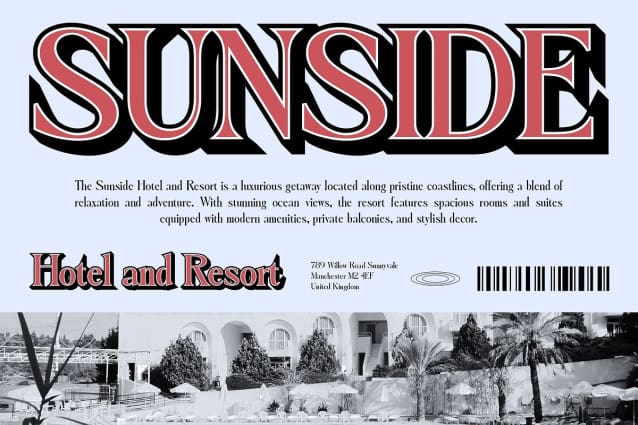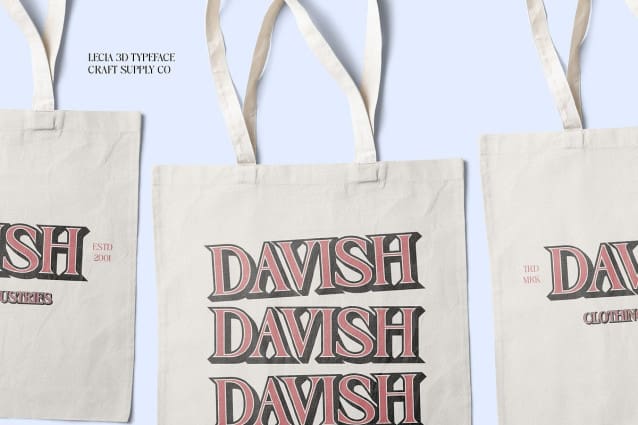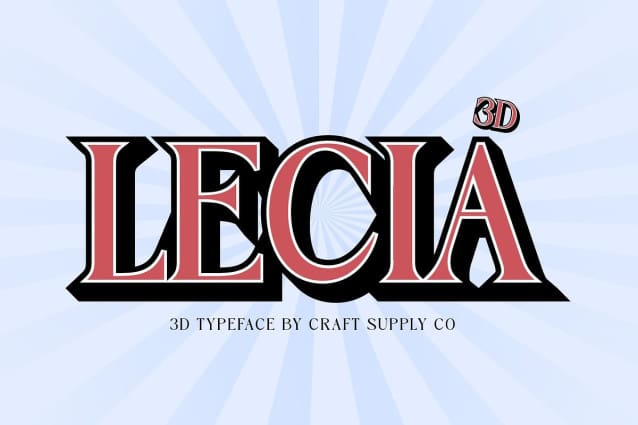
Lecia 3D Font
Lecia 3D Font is a sophisticated serif font that combines modern design principles with timeless elegance. Featuring clean, refined lines and a bold 3D effect, this font adds dimension and depth, making it a standout choice for high-end projects. The dimensional quality gives Lecia 3D a strong visual presence, while maintaining its grace and subtlety, perfect for creating designs that command attention while exuding refinement.
Versatile for Luxury Branding and Editorial Designs With its combination of classic serif elements and a contemporary 3D twist, Lecia 3D is ideal for luxury branding, editorial layouts, and projects that require a sophisticated touch. Its clean and structured letterforms provide clarity and style, making it a perfect fit for fashion, upscale brands, and creative content that needs to convey elegance and authority. The 3D effect enhances the font’s depth, offering a modern aesthetic that remains timeless in its appeal.
Perfect for Sophisticated Projects Whether you’re designing high-end logos, magazine covers, or luxury packaging, Lecia 3D brings a sense of refinement and elegance to your work. The 3D effect adds an extra layer of visual interest, while the font’s strong and clean lines ensure it remains versatile and stylish across various design applications.